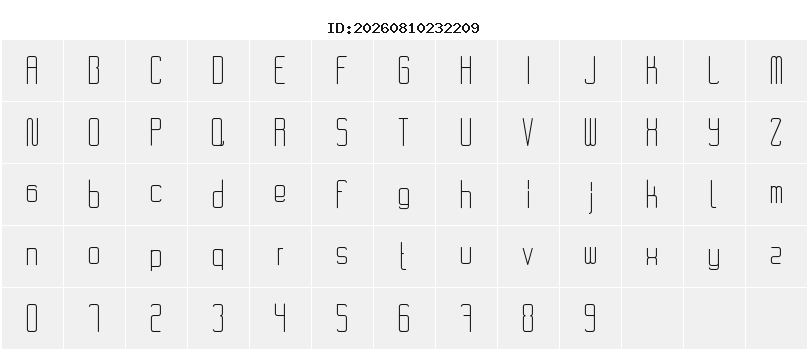
RvD_CODE28 Preview
About RvD_CODE28.ttf
RvD_CODE28.ttf is a modern, elegant sans-serif font designed for ultimate readability and visual harmony. Perfect for branding, headlines, web design, and print materials.